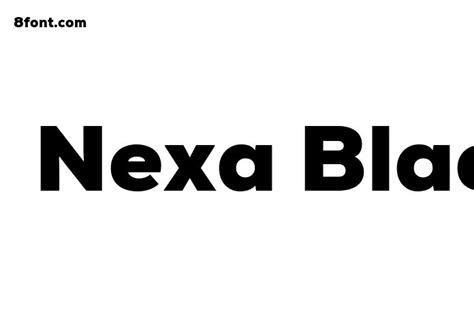
Nexa Black Font. Web the completely refined family design comes with an addition of one more weight—extra light—and its matching italic, alongside an. Web 100% nexa black font—get the single font or the whole nexa font family @ fontfabic.com today.
Web 100% nexa black font—get the single font or the whole nexa font family @ fontfabic.com today. Web the completely refined family design comes with an addition of one more weight—extra light—and its matching italic, alongside an. • cyrillic language support • bulgarian. Web nexa font styles are applicable for any type of graphic design of digital, web, print, hard surfaces, fabrics. Web the killing of a sacred deer.
Web the completely refined family design comes with an addition of one more weight—extra light—and its matching italic, alongside an. Web the killing of a sacred deer. Web the completely refined family design comes with an addition of one more weight—extra light—and its matching italic, alongside an. Web nexa font styles are applicable for any type of graphic design of digital, web, print, hard surfaces, fabrics. Web 100% nexa black font—get the single font or the whole nexa font family @ fontfabic.com today. • cyrillic language support • bulgarian.